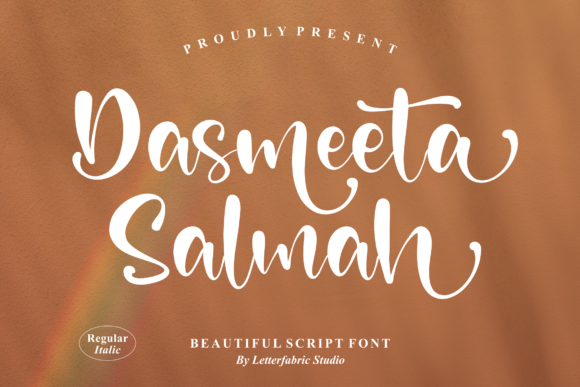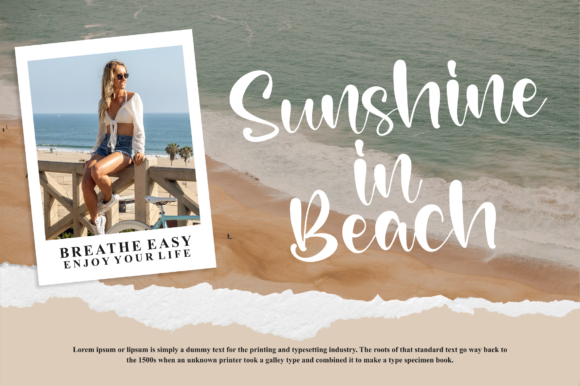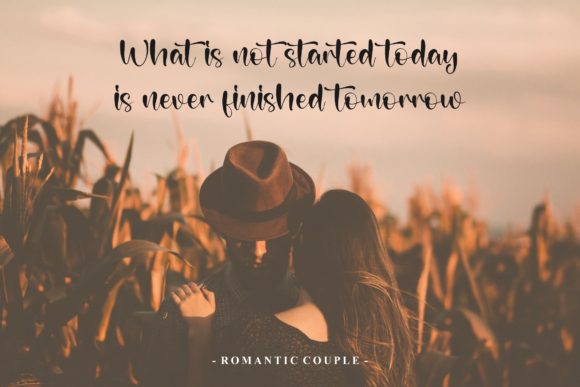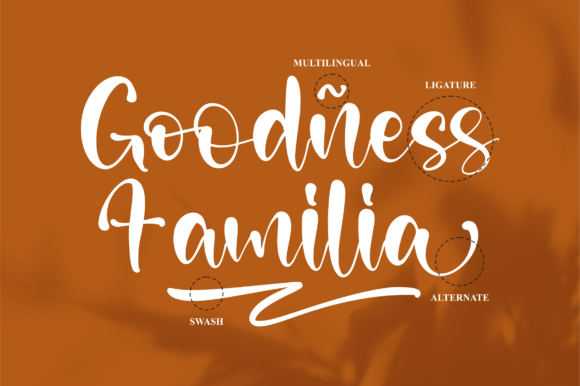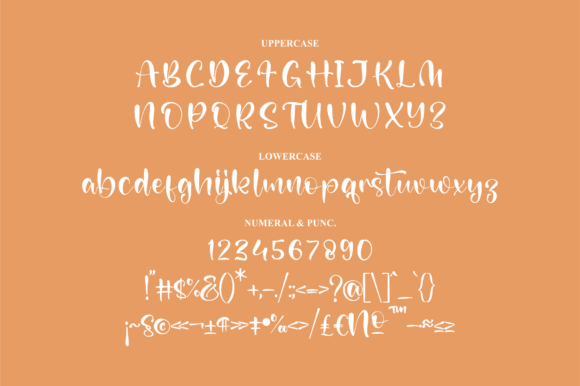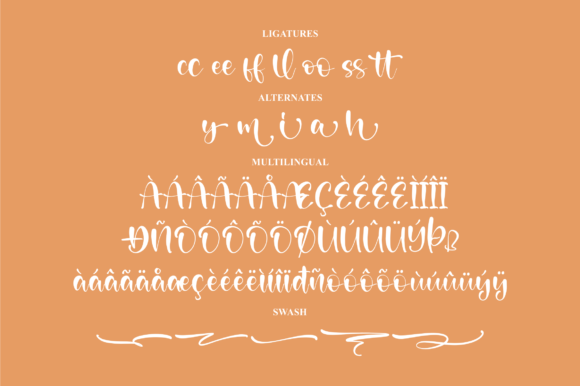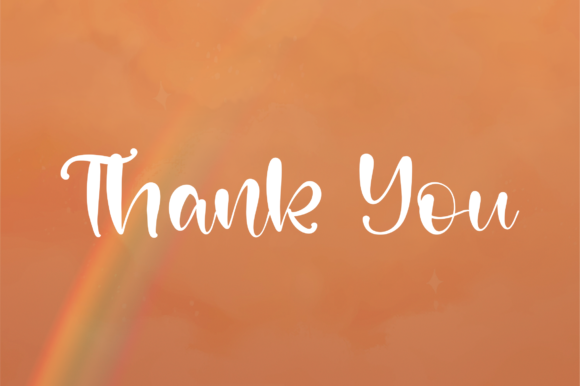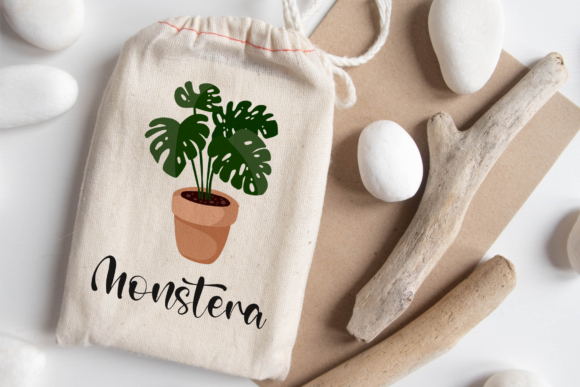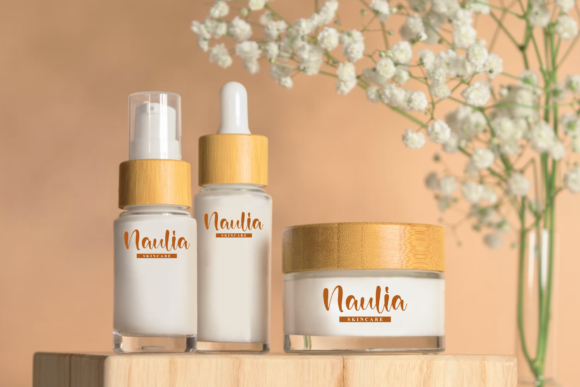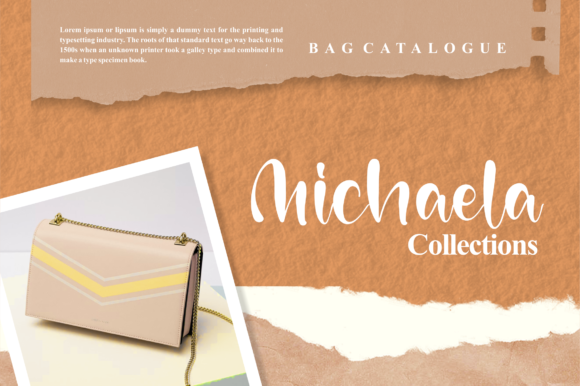
Dasmeeta Salmah Font
About Dasmeeta Salmah Font
Dasmeeta Salmah is a beautiful script font. It is suitable for any projects such as: logos, branding projects, homeware designs, product packaging, mugs, quotes, posters, shopping bags, t-shirts, book covers, and so much more.